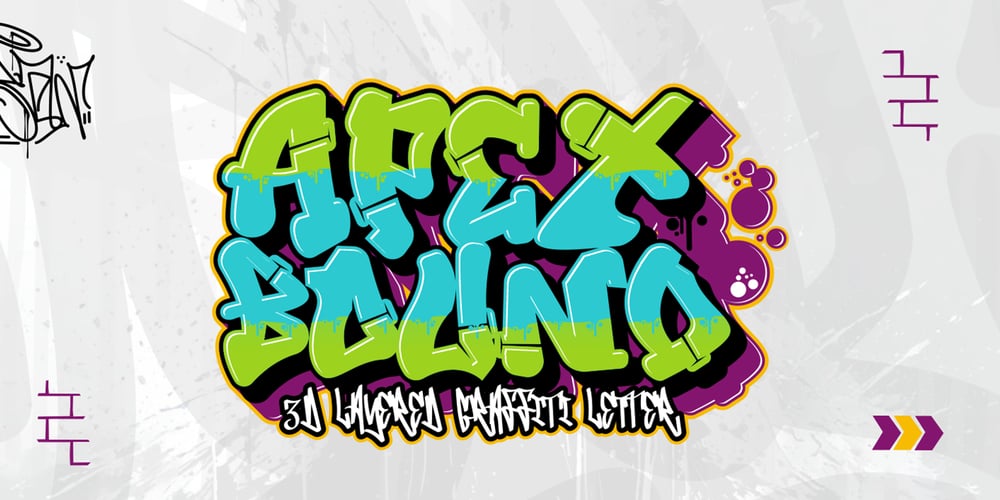
Apex Bound 3d Font Family was designed by Sipanji and published by Sipanji21. Apex Bound 3d contains 4 styles and family package options. “Apex Bound is a versatile and dynamic 3D layered graffiti font that features multiple styles, allowing for a wide range of visual effects. It includes a solid style, which serves as the bold base layer, providing a strong and filled appearance for the letters. The outline style creates a sharp and clean contour around the edges of each character, adding definition and making the letters stand out. The inner shadow style enhances the dimensionality of the font by adding shadows inside the letterforms, giving a sense of depth and a more complex visual appeal. Lastly, the extrude style adds an extended 3D effect, making the letters appear as if they are projecting outward, giving them a sense of volume and structure. Together, these styles allow for the creation of rich, layered text designs that are perfect for graffiti, street art, and urban-inspired projects.”